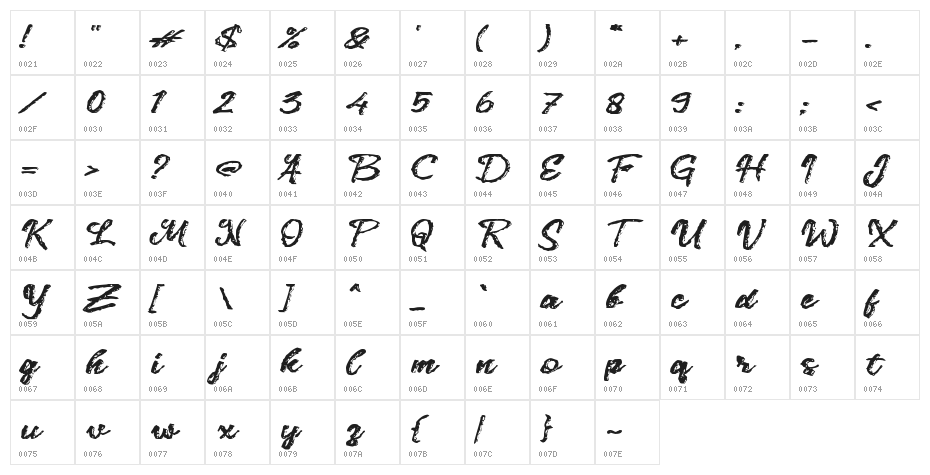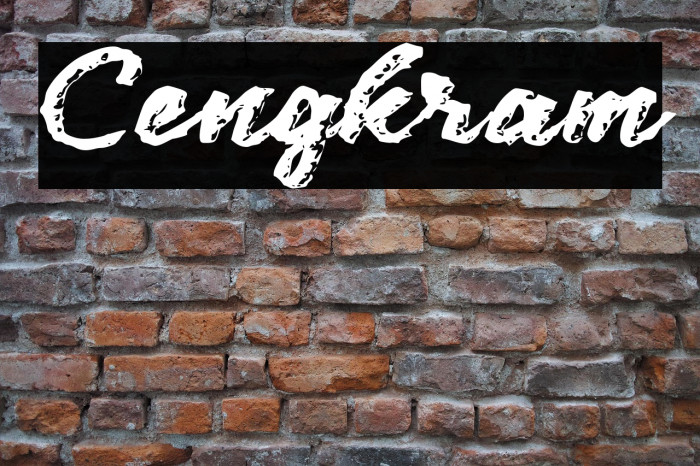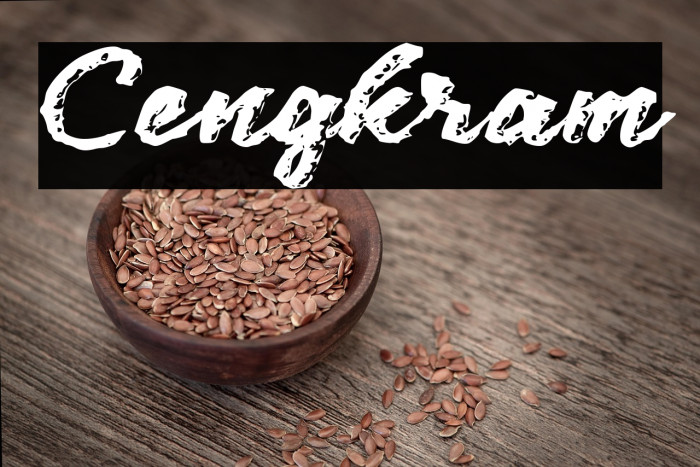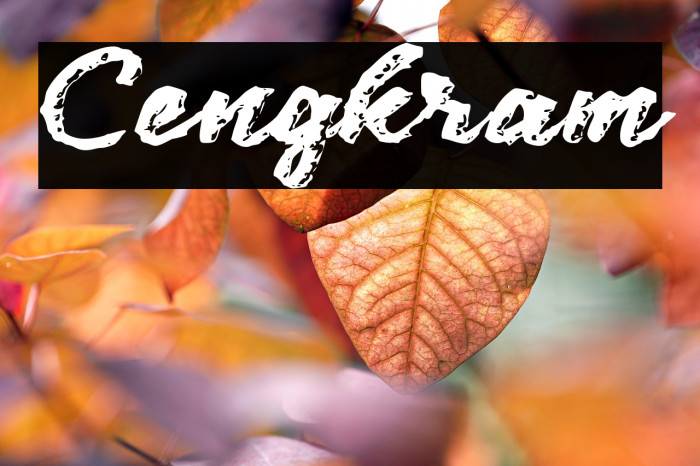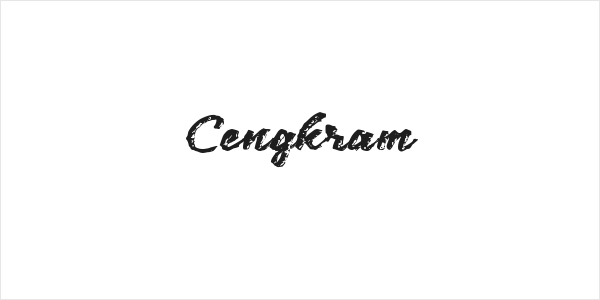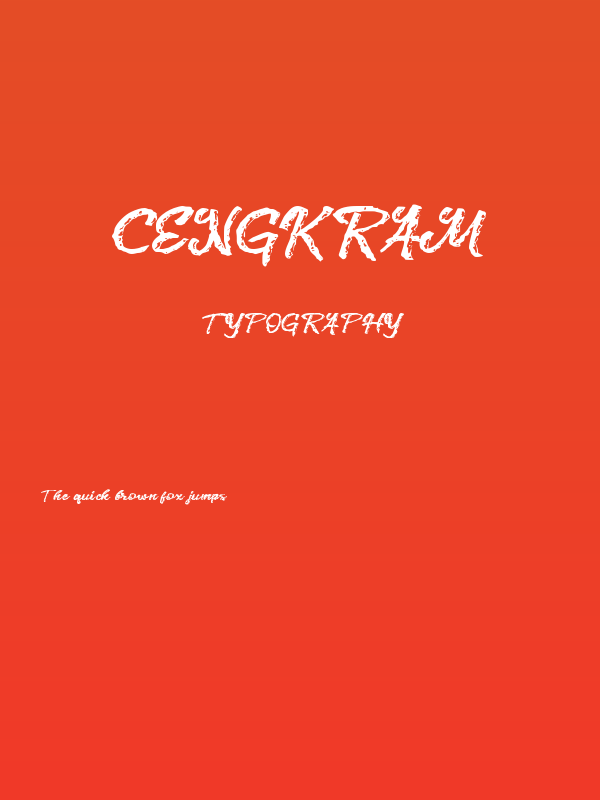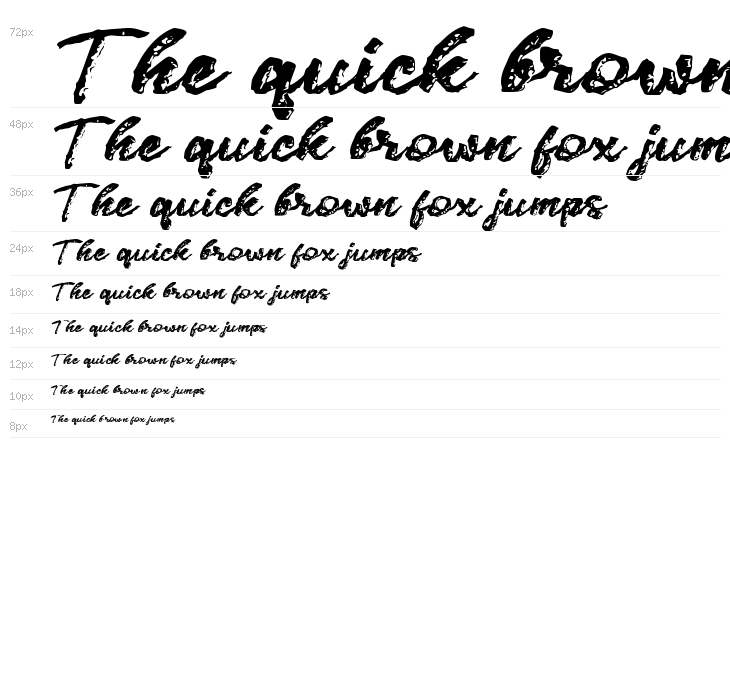
Cengkram Font
Cengkram Description
This font features a bold, textured script style that mimics the appearance of brush strokes. The letters are connected, giving it a fluid and dynamic look. The uppercase and lowercase characters maintain a consistent style, with a slightly rugged and distressed appearance that adds character and uniqueness. The numbers and special characters follow the same design, ensuring uniformity across all glyphs. This font is ideal for projects that require a handmade or artistic touch, such as invitations, posters, or branding materials.
| Use Case | Logos, Headlines, Artistic projects |
| Proposed Projects | Ideal for artistic projects, invitations, posters, and branding materials. |